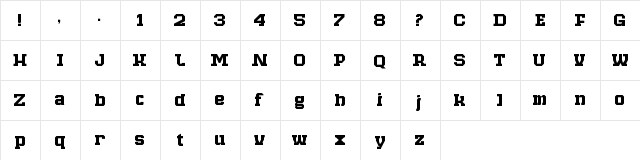
Raven Slab Regular
| Designer | Scott Byrne |
Design Context for Raven Slab Typeface
Raven Slab combines the readability of serif typography with the visual weight of a slab construction, resulting in a typeface that feels both authoritative and approachable.
Suited to magazines, political campaign materials, bold packaging, and any setting where authority matters.
Pro Tip: Use Raven Slab for headlines and subheadings where its slab serifs can make an impression. It also holds up well in mid-size body copy thanks to its sturdy construction.